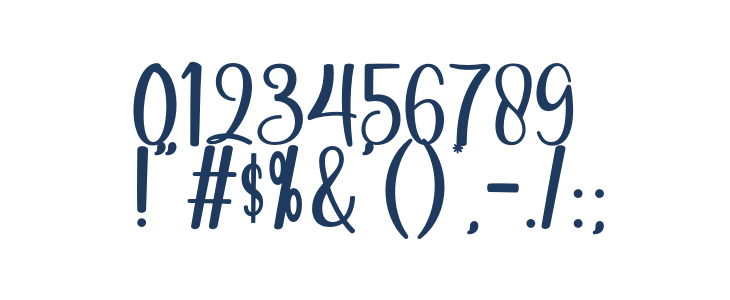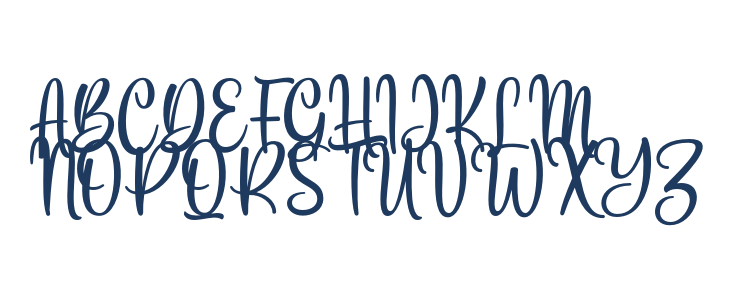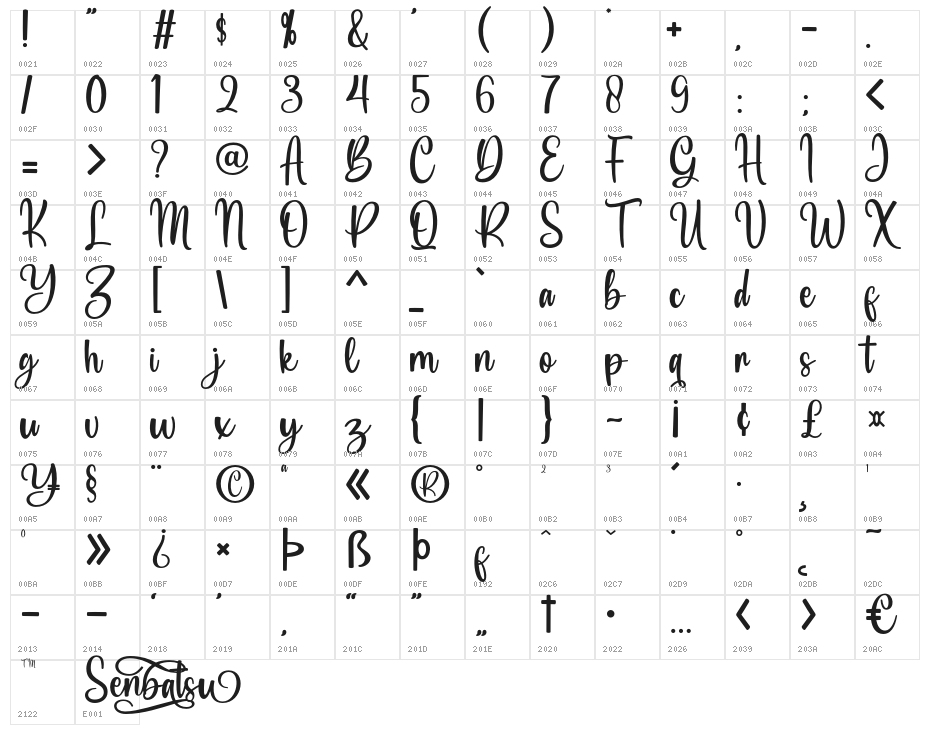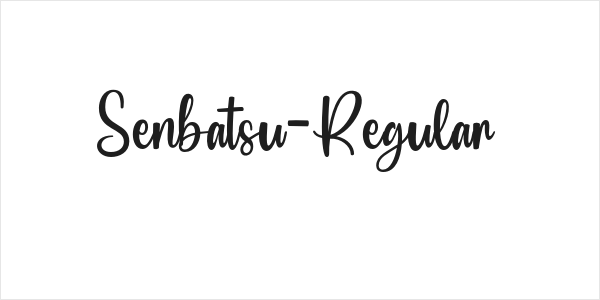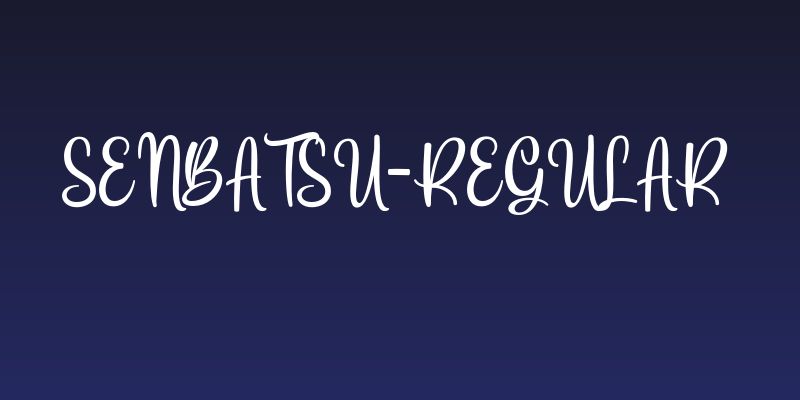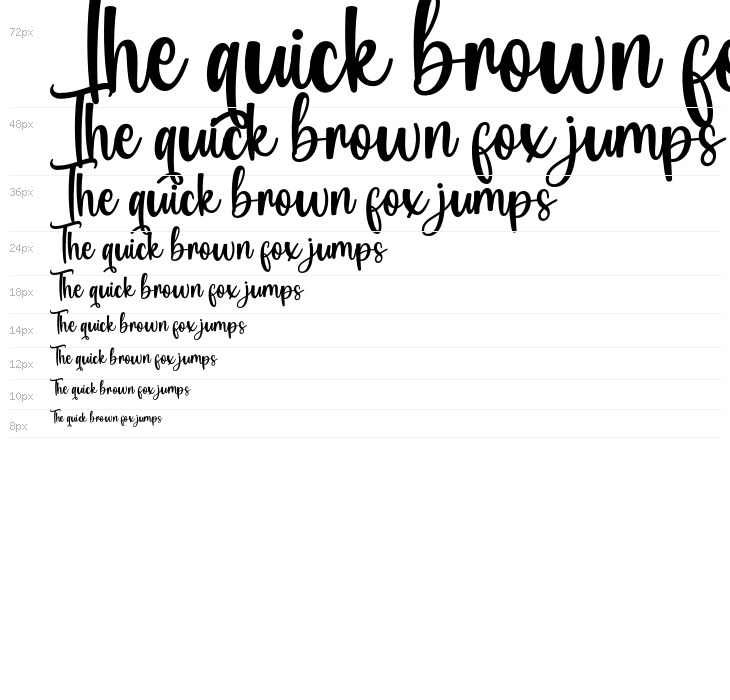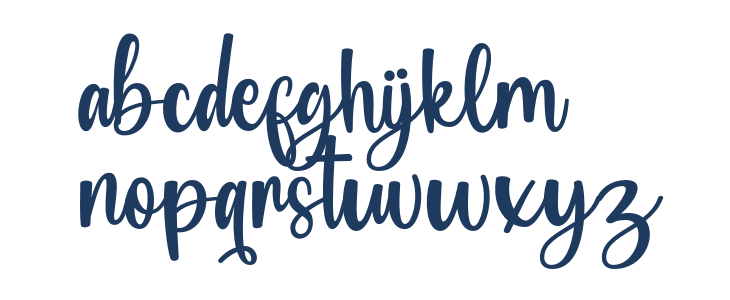
Senbatsu-Regular Font
Senbatsu-Regular Description
A playful, handwritten script font with tall, narrow letterforms and a casual, flowing style. The uppercase and lowercase letters feature smooth curves and variable stroke thickness, with some characters including decorative swashes and loops.
| Overall Style | Decorative, Playful, Modern |
| Use Case | Logos, Headlines, Invitations, Social media |
| Proposed Projects | Greeting cards, invitations, branding, social media graphics, posters. |